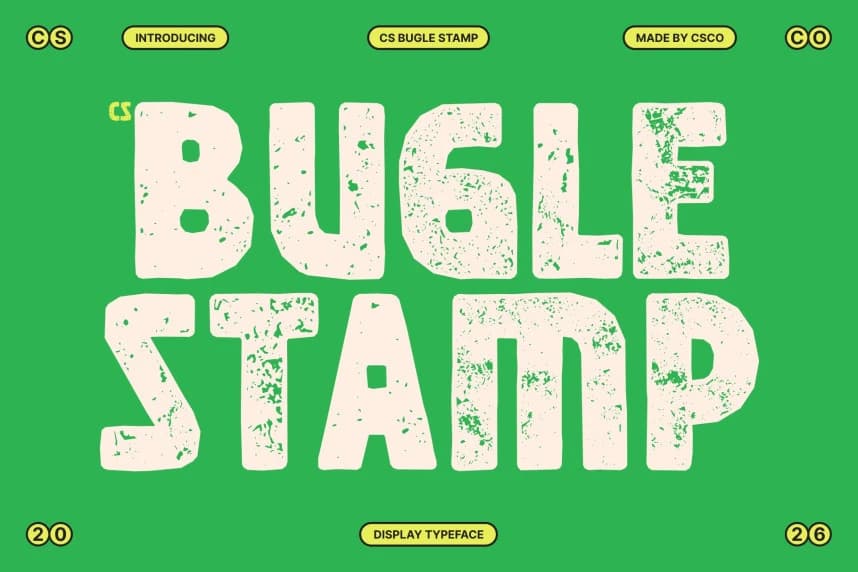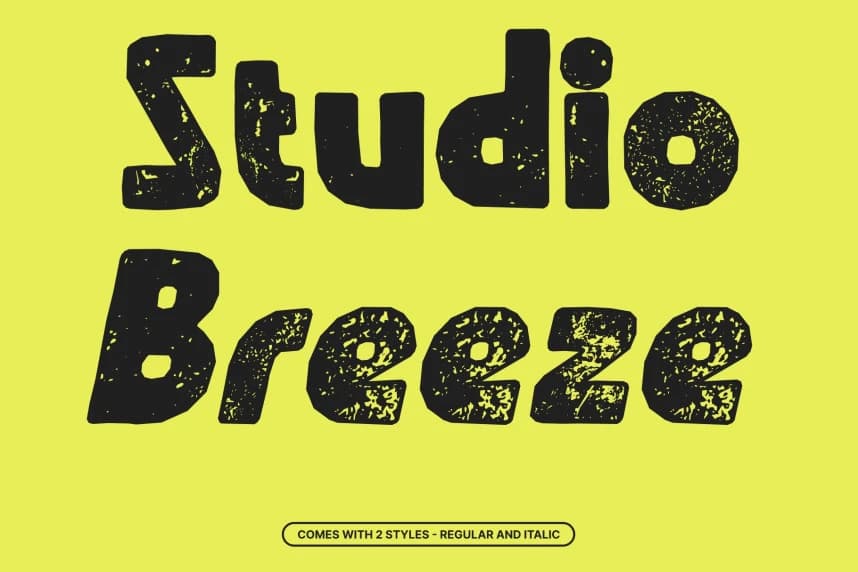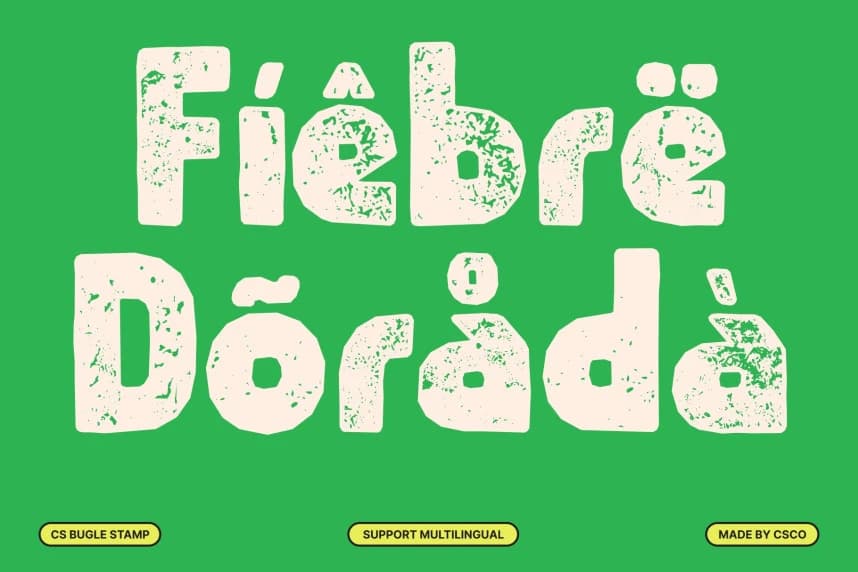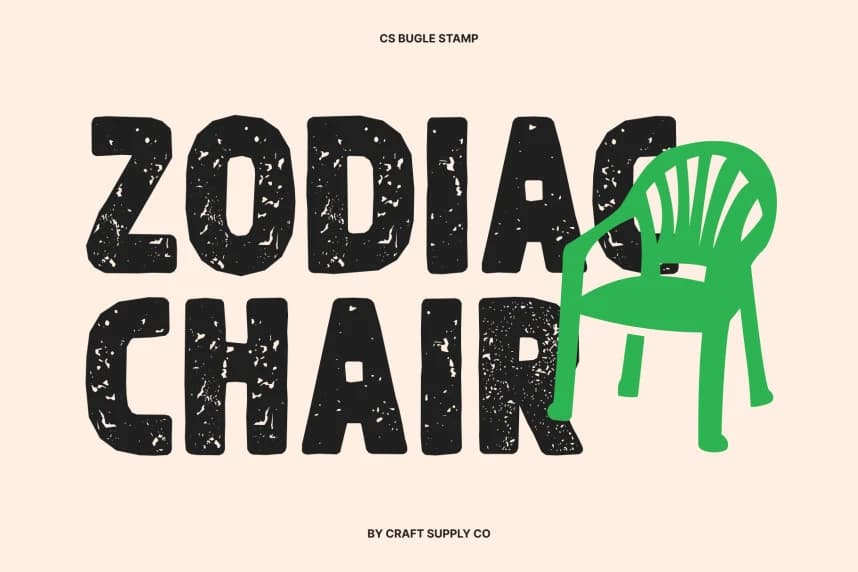
CS Bugle Stamp Font
CS Bugle Stamp Font – Retro Bold Font with Textured 80s Energy Classic 80s Aesthetics with a Modern Twist. This is a bold sans-serif typeface that captures the vibrant spirit of 1980s design.